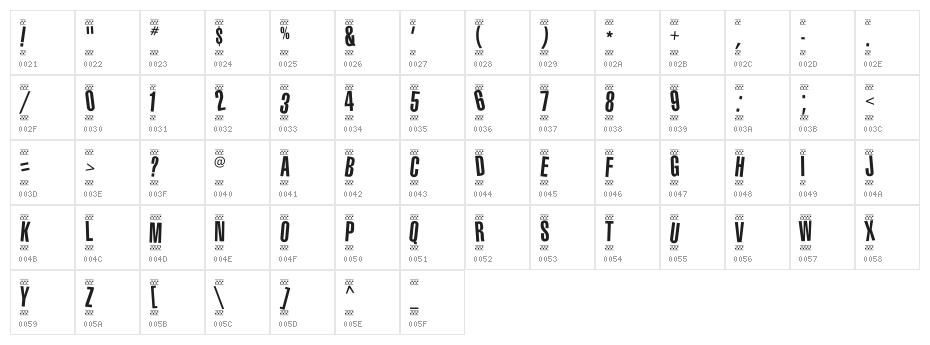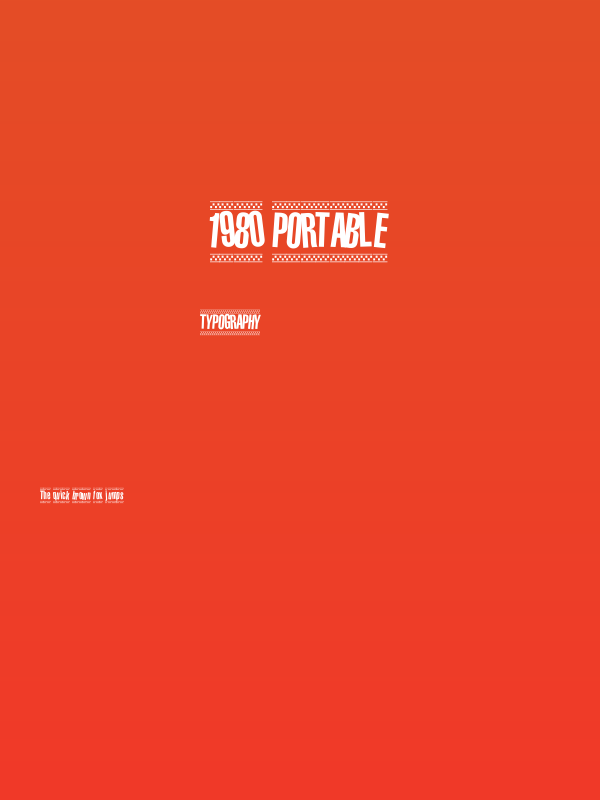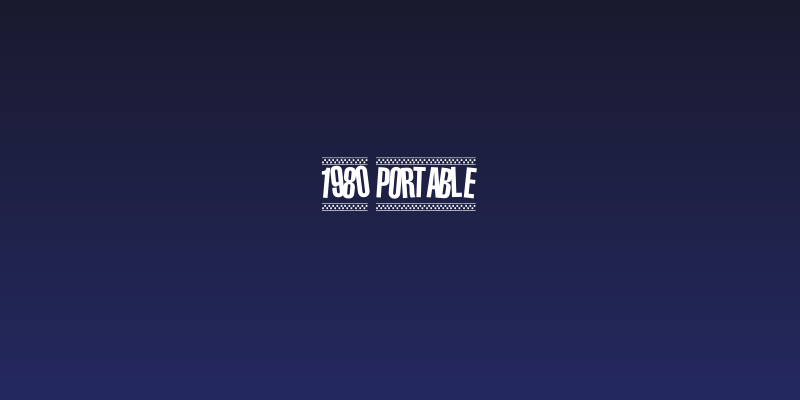
1980 Portable Font
1980 Portable Description
This font features a bold and playful style with a distinct retro vibe. The characters are slightly slanted, giving them a dynamic and energetic appearance. The uppercase letters are particularly striking, with exaggerated curves and angles that add a sense of movement. The lowercase letters maintain a consistent style, complementing the uppercase with a slightly more subdued flair. Numbers and special characters follow the same design principles, ensuring a cohesive look across all elements. The font's unique style makes it ideal for projects that require a touch of nostalgia or a bold statement.
| Overall Style | Vintage |
| Proposed Projects | Ideal for vintage-themed posters, retro branding, playful packaging designs, and eye-catching headlines. |